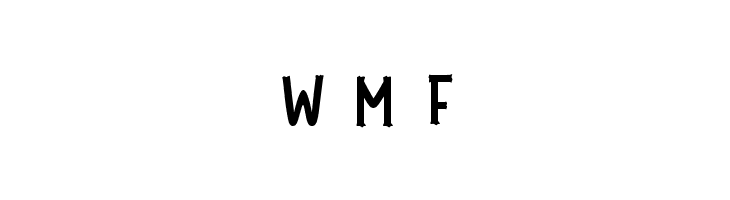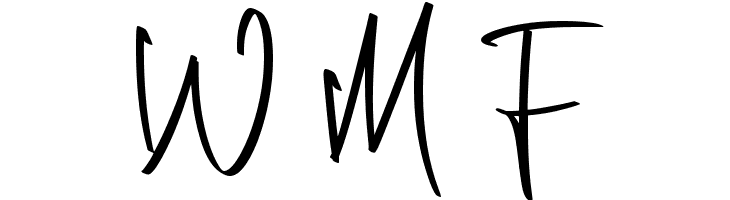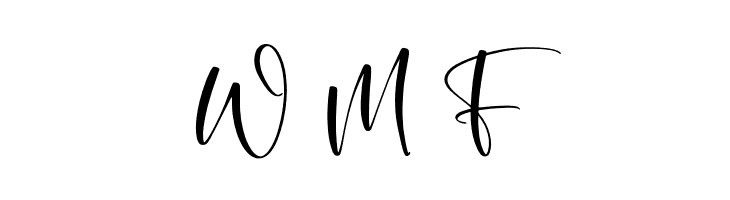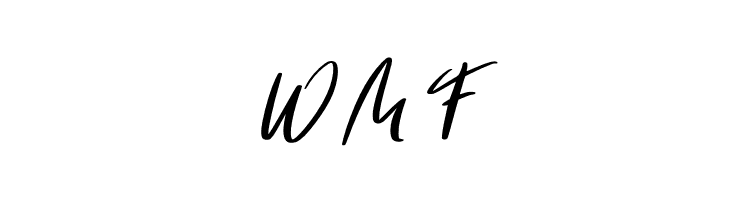
• History Repeating Horizontal
A geometric, modern font with distinct horizontal lines and bold uppercase letters.
• History Repeating Vertical
A clean, modern monospaced font with medium contrast and geometric influences.
• Hobbes
A playful, casual handwritten font with dynamic strokes and a friendly vibe.
• Hola Augusto
A dynamic handwritten font with fluid, expressive strokes.
• Hola Augusto
A dynamic, expressive handwritten font with fluid strokes and a playful style.
• Holistica
An elegant, flowing script font with a modern, handwritten style.
• Holla Grave
A playful, spooky font with jagged, uneven characters perfect for Halloween themes.
• Holla Halloween
A bold, brush-style font with a playful, spooky vibe.
• Hollow City
A lively handwritten font with fluid, energetic strokes and a playful style.
• Honey Bunches
A playful, whimsical handwritten font with looping, flowing letterforms.